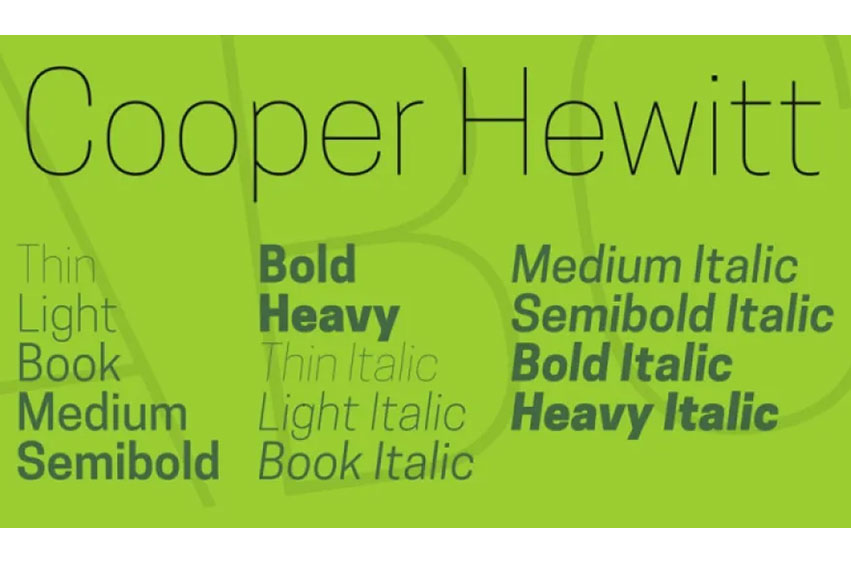
Cooper Hewitt Font
Cooper Hewitt Font is a contemporary sans serif font with characters formed by the re–shaping of geometric arches and curves. Initially, Chester Jenkins was asked by Pentagram only to refine the Polaris Condensed typeface and then he developed a whole new typeface for the Cooper Hewitt’s adaptive evolution.
”Developing this typeface specifically for Cooper Hewitt has been a real pleasure,” said Jenkins. Instead of modifying some of the Polaris designs, I created my own based on the master-stroke widths and letter thicknesses of the existing Polaris designs.